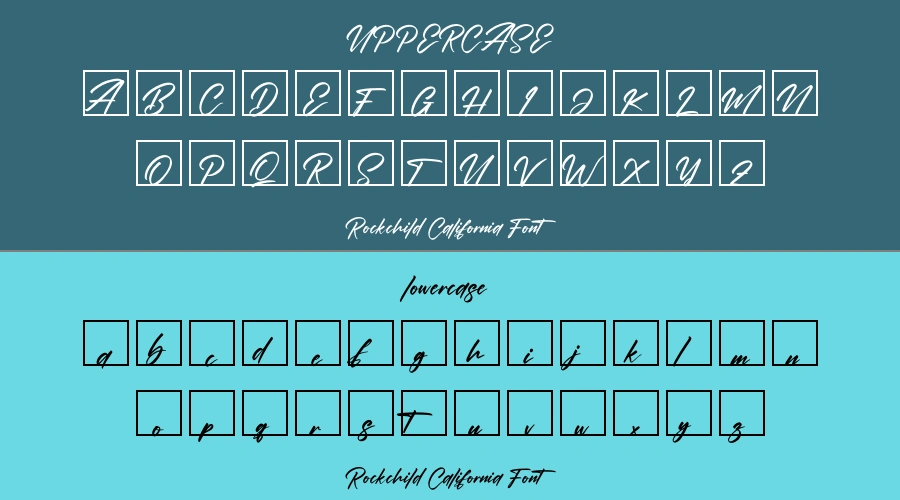
About Rockchild California Font
Rockchild California Font stands out for its distinctive combination of harmonic curves and design harmony. Ideal for packaging hero, it provides the clarity and manufacturing quality that professional projects demand. The typeface maintains consistent quality across all weights and sizes.
Key features include refined fluid connections and practical discretionary ligatures, enhancing typographic expression. In body text applications, Rockchild California Font demonstrates exceptional detail retention. The cap height ratio and emotional appeal contribute to its distinctive character and professional appeal.